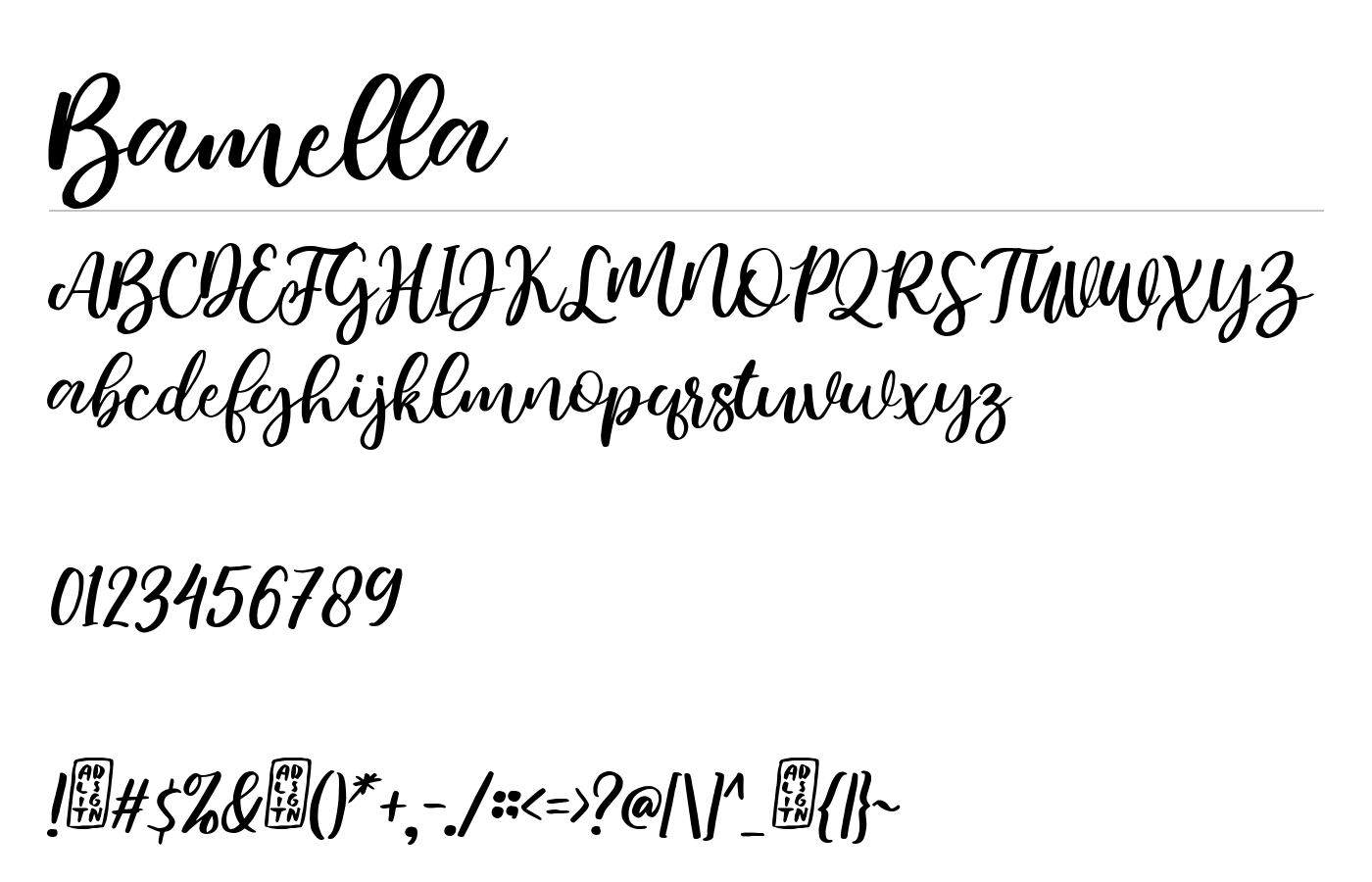
Bamella is a lively and elegant script font featuring smooth, flowing strokes and a balanced contrast that gives it a handwritten charm. Its tall, slightly condensed letterforms with stylish loops and curls make it perfect for adding a personal, creative touch to branding, invitations, and headline design. This font’s friendly yet refined personality works well for fashion, beauty, and lifestyle projects seeking a modern yet approachable look.
Bamella Font
About Bamella Font